34 Best Urban Trendy Sans-Serif Fonts for Your 2026 Design Projects
Building a brand that feels current in 2026 requires a sharp eye for typography, and nothing beats the clean, edgy look of urban trendy sans-serif fonts. In this collection, we have gathered 34 high-quality options that perfectly blend streetwear aesthetics with professional legibility. Whether you are designing for a tech startup in the city or a local skate shop, these typefaces provide the versatility and style needed to capture a modern audience’s attention.
1. Aeromaze Font
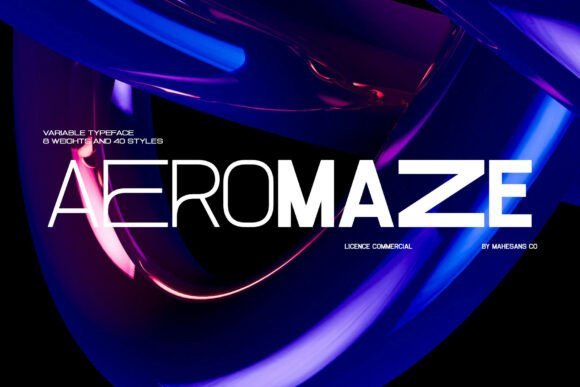
Aeromaze Font represents a sophisticated leap into the future of digital aesthetics, specifically engineered for designers who demand a high-tech edge in their typographic choices. As a standout among urban trendy sans-serif fonts, its construction features a meticulous balance between geometric precision and a fluid, approachable personality. This typeface captures the essence of contemporary minimalism, offering a sleek skeletal structure that feels at home within high-end automotive interfaces, aerospace branding, and forward-thinking tech startups.
Beyond its clean lines, Aeromaze thrives in environments where visual clarity and modern vibes are non-negotiable. It is an exceptional candidate for esports streaming overlays, sci-fi book covers, and futuristic user interfaces where legibility must meet high-concept style. By utilizing this font in immersive social media campaigns or high-resolution product packaging, creators can achieve a polished, professional look that suggests a brand is operating light years ahead of its competition.
2. Under Trained Font
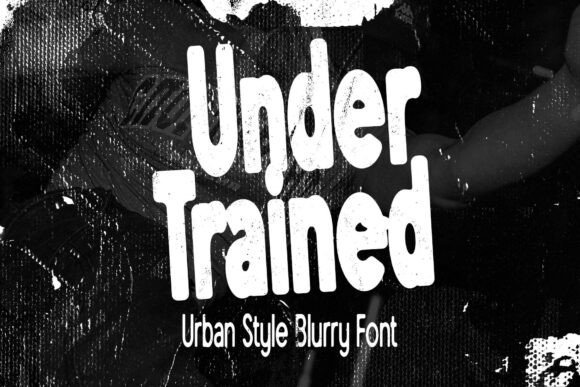
Under Trained Font breaks the traditional boundaries of typography by embracing a raw, motion-blurred aesthetic that mirrors the chaotic energy of metropolitan nightlife. Drawing deep inspiration from underground street culture and DIY zine aesthetics, this typeface is a powerful entry in the world of urban trendy sans-serif fonts. Its tall, condensed character shapes are intentionally softened by a hazy texture, creating a sense of rapid movement and urgency that is perfect for projects seeking a brutalist or Y2K-inspired visual identity.
This font is tailor-made for designers working in the streetwear sector or the independent music scene, where a certain level of grit and rebellion is required. The distorted edges provide an organic, analog feel that contrasts beautifully against clean, digital layouts. Use Under Trained for oversized fashion posters, experimental editorial spreads, or high-impact social media graphics to convey a sense of motion and raw authenticity that standard, sterile fonts simply cannot replicate.
3. Mirox Font
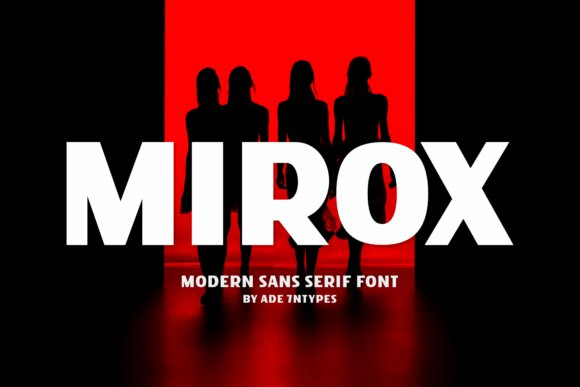
Mirox Font stands as a monolith of modern design, offering a chunky, heavy-duty presence that instantly anchors any visual composition. This heavy sans serif is a masterclass in how urban trendy sans-serif fonts can bridge the gap between vintage block lettering and hyper-modern geometric styles. With its thick, all-caps characters, Mirox exudes an undeniable authority, making it an essential tool for creating bold logos and dominant headlines that need to cut through the visual noise of a crowded creative market.
Because of its robust proportions and rounded corners, Mirox excels in physical applications such as heavy-weight apparel printing and premium retail packaging. It offers a playful yet sturdy vibe that works exceptionally well for lifestyle branding, high-visibility advertising, and t-shirt designs. Whether you are building a brand identity for a modern architectural firm or launching a new line of street-smart consumer goods, this font provides the structural integrity and stylish heft needed to command immediate attention.
4. Urban Shadow Font
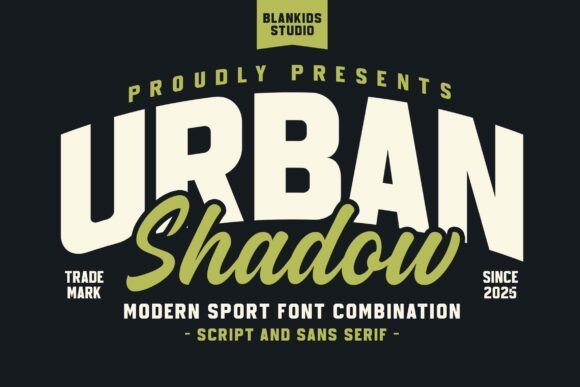
Urban Shadow captures the high-energy spirit of collegiate athletics and transforms it into a versatile toolkit for modern creators. By blending traditional varsity lettering with a clean, contemporary aesthetic, this typeface serves as a standout choice among urban trendy sans-serif fonts. The inclusion of both sans-serif and script variants allows designers to create complex, layered branding systems that feel both nostalgic and forward-thinking. Whether you are crafting a bold logotype for a fitness brand or developing merchandise for a street-style apparel line, the structured geometry of the uppercase letters provides a solid foundation for any professional project.
Technical precision is at the heart of this collection, which features a comprehensive set of numerals and punctuation alongside its distinctive letterforms. The ‘college sporty’ influence is evident in every stroke, making it particularly effective for watermarks and promotional posters that require a sense of movement and competitive drive. By utilizing the script companion, you can soften the industrial edges of the primary sans-serif, achieving a balanced visual hierarchy that resonates with an active, metropolitan audience looking for authentic, varsity-inspired design.
5. Urban Impact Font
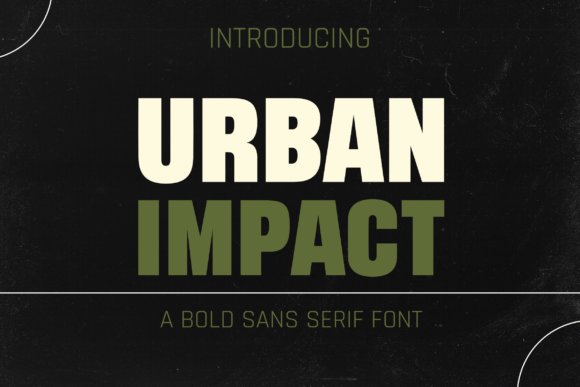
Engineered for maximum visibility, Urban Impact is a powerhouse in the world of urban trendy sans-serif fonts. Its design philosophy centers on the structural resilience of modern architecture, featuring thick, unwavering lines that command attention across digital and physical landscapes. This is the go-to typeface for designers who need to communicate authority and clarity in high-density environments. The solid structure ensures that headlines remain legible even at great distances, making it an ideal candidate for industrial-themed branding, large-scale event posters, and aggressive marketing campaigns that leave no room for ambiguity.
Beyond its sheer visual weight, Urban Impact brings a specific energy that mirrors the pulse of a thriving cityscape. It avoids the clutter of unnecessary ornamentation, relying instead on its robust proportions to convey a message of confidence. We recommend using this font for impactful social media thumbnails or editorial spreads where the typography needs to act as the primary visual anchor. Its clean, masculine aesthetic works harmoniously with gritty photography and minimalist layouts, providing a stark contrast that elevates the overall intensity of your creative work.
6. Chorus Font
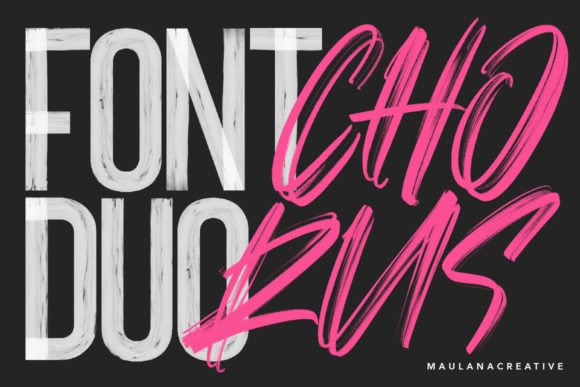
Chorus represents the sophisticated side of urban trendy sans-serif fonts, offering a dual-styled approach that pairs a rhythmic script with a minimalist sans-serif. This harmonious combination is designed to handle the nuances of modern storytelling, where a brand needs to feel both approachable and professionally polished. The script component adds a hand-crafted, human touch to the composition, while the sans-serif provides the stability and modern edge required for digital interfaces and boutique packaging. This synergy makes Chorus an essential asset for lifestyle influencers, high-end retail brands, and editorial designers seeking a bespoke feel.
In practice, the versatility of Chorus allows for seamless transitions between diverse media types. The light, airy nature of the typeface prevents it from feeling heavy, making it perfect for elegant wedding stationery, luxury product labels, or modern blog headers. By alternating between the two styles, you can create a dynamic visual narrative that guides the viewer’s eye through the content. This font duo doesn’t just fill space; it elevates the surrounding design elements by introducing a sense of curated, urban elegance that is rare in more traditional font pairings.
7. Skylines Font
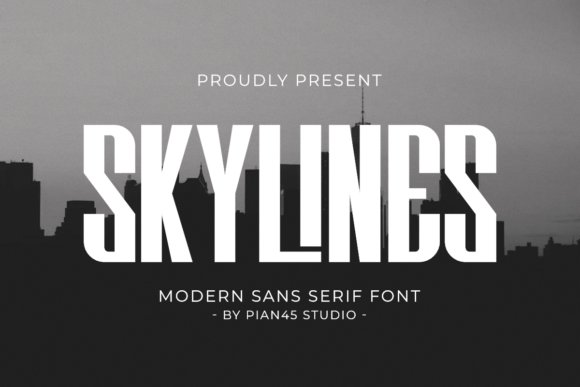
Skylines Font captures the verticality and rhythmic cadence of a metropolitan landscape, offering a condensed profile that mirrors the architectural precision of modern skyscrapers. This typeface is a masterclass in space efficiency, designed specifically for designers who need to make a massive impact within the narrow constraints of mobile interfaces or tall editorial columns. Its sharp terminals and strictly vertical stress evoke a sense of professional polish, making it a standout selection among urban trendy sans-serif fonts for those looking to project authority and sleekness in a single stroke.
Beyond its aesthetic appeal, this font is technically optimized with PUA encoding, ensuring that all unique glyphs and character variations are accessible without specialized design software. It excels in environments where readability and style must coexist, such as luxury real estate branding, high-tech navigational menus, or cinematic title sequences that require a look of sophisticated industrialism. If your project demands a typeface that feels both grounded and aspirational, Skylines provides the necessary height and structure to elevate your visual narrative.
8. Urban Legend Font
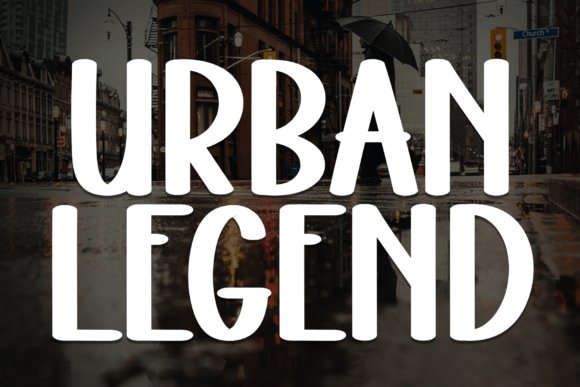
Urban Legend Font breaks away from the cold rigidity of traditional typography by introducing a subtly rounded geometry that softens its bold, heavy weight. It is the quintessential choice for streetwear labels and independent lifestyle brands that want to communicate a sense of grit without sacrificing approachability. The balanced proportions and clean apertures ensure that even at maximum thickness, the font remains legible and energetic, perfectly capturing the pulse of the underground creative scene and contemporary city life.
This typeface thrives in high-contrast environments, such as neon-lit social media graphics, bold apparel prints, and gritty documentary posters. Its unique personality lies in the tension between its massive presence and its friendly, softened edges, allowing it to bridge the gap between high-fashion exclusivity and street-level authenticity. When searching for urban trendy sans-serif fonts that possess a distinct “voice,” Urban Legend stands out for its ability to command attention while maintaining a welcoming, community-focused vibe.
9. Estylo Font
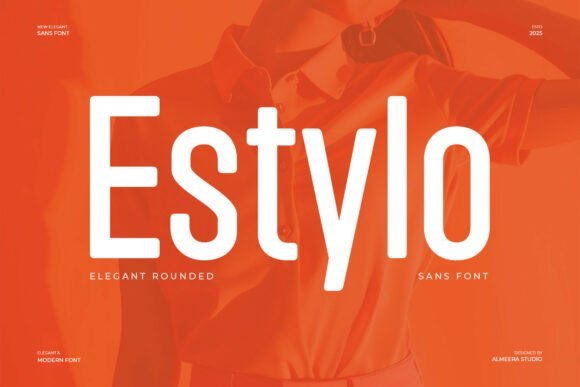
Estylo Font is a celebration of geometric harmony and minimalist luxury, crafted for brands that prioritize a clean, uncluttered aesthetic. Each character is built on a foundation of smooth curves and balanced weights, resulting in a display face that feels exceptionally fluid and rhythmic. Unlike more aggressive display fonts, Estylo maintains a sense of “quiet confidence,” making it the ideal partner for high-end boutique branding, editorial layouts for design magazines, and digital portfolios that require a touch of modern class.
Because of its versatile structure, Estylo functions beautifully in both print and digital mediums, adapting seamlessly to the high-resolution requirements of modern web design. It is frequently sought after by designers looking for urban trendy sans-serif fonts that can transition from a luxury fragrance logo to a functional mobile app header without losing its sophisticated character. The font’s emphasis on circular forms and open space creates an airy, breathable quality that reflects the best of current lifestyle aesthetics and avant-garde design trends.
10. Urban Pollution Font
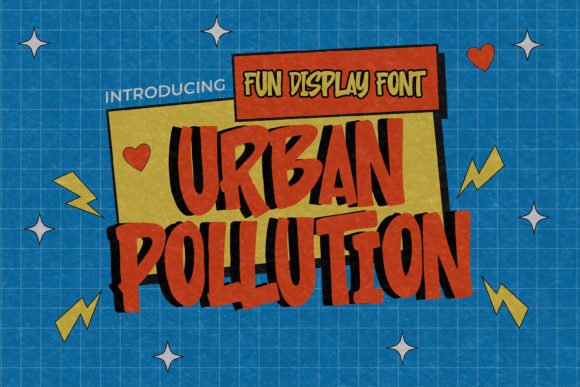
Urban Pollution Font captures the raw, energetic spirit of the city with a playful yet retro-styled aesthetic that bridges the gap between classic display styles and modern streetwear. Its letterforms possess a distinct personality that is both approachable and edgy, making it an ideal choice for urban trendy sans-serif fonts that need to stand out on physical merchandise. The slightly irregular contours give it a hand-crafted feel, perfect for designers looking to inject some authentic character into their visual storytelling.
Beyond its casual charm, this typeface excels in high-visibility contexts such as sportswear branding, dynamic logos, and bold advertising campaigns. Whether you are plastering it across oversized t-shirts or using it as a focal point for a rebellious fashion label, Urban Pollution maintains its legibility while delivering a massive punch of personality. It is the go-to solution for projects that demand a lived-in, textured look without sacrificing professional polish.
11. Gc Grind Font
Gc Grind Font is a masterclass in condensed typography, engineered for designers who require maximum impact within tight horizontal spaces. This typeface radiates an assertive, modern grit, making it a cornerstone for those seeking urban trendy sans-serif fonts that command immediate attention. Its sharp edges and tight tracking create a powerful vertical rhythm, perfect for high-stakes editorial headlines, cinematic posters, and aggressive sports branding where strength and speed are the core themes.
The technical sophistication of this font is further enhanced by its PUA encoding, allowing designers to seamlessly access a range of alternates and characters for custom logo work. In the digital landscape, Gc Grind cuts through the noise of standard web layouts, offering a contemporary stance that feels both futuristic and grounded in industrial design. Use it when your project requires a confident, unapologetic visual presence that refuses to be ignored.
12. Rainbow Darling Duo Font
The Rainbow Darling Duo Font represents a sophisticated toolkit for modern brand identities, pairing a massive, rounded sans-serif with a graceful monolinear script. This juxtaposition allows creators to explore the duality of urban trendy sans-serif fonts—combining the heavy, structural weight of city architecture with the fluid, personal touch of human handwriting. The chunky sans component is particularly effective for large-scale graphics, while the script adds a layer of sincerity and elegance to the overall composition.
This duo is specifically tailored for lifestyle brands, boutique event stationery, and social media content creators who want to build a legendary visual narrative. By alternating between the high-impact blocks of the sans and the rhythmic flow of the script, you can create a hierarchy of information that feels both professional and intimately crafted. It is an essential choice for anyone looking to achieve a signature look that feels current, youthful, and highly versatile across different media platforms.
13. Marony Font
Marony stands out as a titan among urban trendy sans-serif fonts, boasting a thick geometric architecture that commands attention immediately. The defining characteristic of this typeface is its rhythmic underline flourish, which adds a sense of motion and kinetic energy to static designs. It is specifically engineered for the fast-paced world of independent athletic apparel and high-octane branding where a sense of momentum is essential for capturing a viewer’s eye in a crowded marketplace.
This typeface excels in large-scale applications like high-impact social media headers and street-level promotional posters. Its massive structural weight provides a stable foundation for complex layouts, while the clean lines ensure maximum legibility even from a distance. If you are looking to define a brand with a bold and unforgettable personality, Marony offers the modern-and-dynamic soul required to cut through digital noise and establish a dominant visual presence.
14. Navarro Font
Navarro taps into the gritty, industrial aesthetic of city life, positioning itself as a premier retro urban sans-serif stencil font. Unlike clean or clinical typefaces, this font embraces the raw grunge and grit found in metropolitan landscapes, offering a commanding appearance that feels rooted in street art and architectural signage. Its simple geometric forms are interrupted by precise stencil gaps, giving it an authentic, lived-in feel that resonates with heritage branding and vintage-inspired graphics.
Perfect for designers working on projects that require a touch of historical weight, Navarro functions beautifully on textured backgrounds like brick, concrete, or weathered wood. It serves as an ideal choice for urban-themed apparel, craft brewery labeling, or editorial layouts exploring the intersection of modern design and mid-century industrialism. By integrating this stencil look, you infuse your project with a strong, masculine character that is both timeless and trend-forward.
15. Magnol Font
Magnol represents the pinnacle of contemporary minimalism, offering a sleek and urban geometric sans-serif experience. Its design philosophy centers on balanced proportions and wide apertures, which lend an airy, breathable quality to digital interfaces and printed media alike. As one of the more versatile urban trendy sans-serif fonts available, it perfectly balances the line between professional corporate identity and the avant-garde aesthetics of the high-fashion industry.
The inherent clarity of this font makes it a superb candidate for UX/UI design, mobile applications, and modern editorial work where readability is the top priority. Beyond its functional utility, Magnol possesses a chic, trendy vibe that enhances high-end luxury branding or minimalist lifestyle blogs. Whether you are crafting a clean logo or a comprehensive brand guidelines document, Magnol provides a polished, sophisticated edge that feels current and globally accessible.
16. Grisy & Rocky Font
Grisy & Rocky is a definitive condensed bold powerhouse, representing the high-impact side of urban trendy sans-serif fonts. Its slender yet sturdy profile is specifically engineered for designs where verticality and space efficiency are paramount, making it an exceptional choice for gritty streetwear apparel, gym signage, and high-energy sports broadcast graphics. The typeface exudes a raw architectural strength that ensures your headlines punch through busy visual environments without sacrificing legibility or professional polish.
What sets this typeface apart is the inclusion of sophisticated ligatures and alternates that allow designers to break the standard rigidity often found in condensed styles. These creative flourishes make Grisy & Rocky highly adaptable for modern digital marketing campaigns and contemporary magazine covers. Whether you are building a visual identity for an emerging fitness brand or crafting a bold header for a tech-oriented blog, this font delivers a sense of momentum and unshakeable confidence that commands the viewer’s immediate attention.
17. Ecliptica Font
Ecliptica serves as a sophisticated bridge between brutalist street aesthetics and high-fashion minimalism, carving out a unique niche within the realm of urban trendy sans-serif fonts. Characterized by its expansive wide proportions and a strikingly tall x-height, this typeface offers an open, airy feel that is rarely found in traditional geometric designs. Its clean architecture makes it a premier candidate for luxury lifestyle editorials and high-end digital interfaces where clarity and minimalist elegance are the primary objectives.
Crafted by Vadova Studio for the next generation of creatives, Ecliptica provides a sturdy yet stylish presence that maintains its integrity across diverse mediums, from large-scale environmental graphics to mobile app UI. In the context of streetwear branding, it offers a professional edge that reflects the fast-paced, evolving nature of global style trends. By balancing functional geometry with a distinct fashion-forward personality, this font ensures that any brand identity feels both timeless and cutting-edge.
18. Droves Font
Droves is a masterclass in understated luxury, offering a sleek and assertive charm that captures the essence of modern sophistication. As an essential entry among urban trendy sans-serif fonts, it favors a monochromatic and minimalist approach that thrives in high-contrast design environments. The font’s refined stroke weights and balanced character spacing create a polished visual rhythm, making it the ideal choice for high-gloss fashion magazines, luxury real estate brochures, and premium editorial layouts that require a touch of class.
Unlike more aggressive display faces, Droves maintains a quiet dominance that enhances the surrounding imagery rather than overwhelming it. This subtle power makes it a go-to for graphic and print design virtuosos who need a versatile typeface for art gallery catalogs or high-end cosmetic branding. By integrating Droves into your creative projects, you infuse your work with a distinctive, professional radiance that translates complex brand values into a chic and easily digestible visual language.
19. Kartazis Font
Kartazis breaks away from the clean lines typically associated with digital typography, offering a raw, unfiltered aesthetic that channels the energy of concrete jungles. This typeface captures a gritty, distressed texture that makes it an essential asset for designers looking to inject a sense of authenticity and street credibility into their work. Its irregular edges and weathered appearance suggest a history and a story, moving beyond mere decoration to provide a visceral, tactile experience that resonates with a subculture audience.
When integrating Kartazis into your toolkit of urban trendy sans-serif fonts, think of it as the perfect choice for underground music posters, skate culture branding, or edgy apparel labels. It thrives in high-contrast environments where its industrial, used feel can clash effectively against minimalist layouts. Whether utilized for a DIY zine cover or a provocative social media campaign, this font ensures your message is not just seen, but felt through its uncompromisingly bold and textured character.
20. Mandtown Font
Mandtown stands as a testament to the power of structured confidence, bridging the gap between high-fashion editorial aesthetics and the rugged world of modern streetwear. Its architecture is defined by sturdy letterforms and exceptionally tight kerning, creating a dense, impactful visual rhythm that commands immediate attention on any canvas. Unlike more chaotic distressed faces, Mandtown relies on geometric precision and clean lines to communicate its authority, making it a cornerstone for brands that want to appear established yet cutting-edge.
This typeface is remarkably versatile across digital and physical media, excelling particularly in large-scale formats like billboard advertisements or cinematic title cards. As one of the more versatile urban trendy sans-serif fonts, it offers the legibility required for dense editorial layouts while maintaining enough stylistic flair to carry a standalone logo. It is the go-to choice for creators who need a font that feels both timelessly solid and intensely current, ideal for everything from high-end tech startups to independent boutique labels.
21. Urban Space Font
Urban Space is a heavyweight contender in the realm of display typography, engineered specifically for those moments where subtlety is not an option. Its massive stroke weight and intentional lack of frills result in a typeface that feels industrial and immovable, much like the skyscrapers that define a city’s skyline. This font is built for the maximalist age, providing the necessary visual weight to anchor complex graphic compositions and ensure that headlines remain readable even amidst vibrant, busy backgrounds or high-speed scrolling.
While many urban trendy sans-serif fonts lean into thin, airy structures, Urban Space goes in the opposite direction, making it a premier selection for gaming interfaces, action movie branding, and bold apparel graphics. Its thick, blocky nature provides a perfect canvas for custom textures, gradients, or 3D effects, allowing designers to experiment with high-impact visuals. From YouTube thumbnails that require instant clickability to corporate identities that want to project strength and stability, Urban Space provides a rock-solid foundation for any project demanding maximum visibility.
22. Urban Vogue Font
Urban Vogue Font is a masterclass in minimalist sophistication, specifically tailored for the high-fashion circuit and upscale editorial layouts. As a standout choice among urban trendy sans-serif fonts, its design philosophy centers on clean, fluid lines and perfectly balanced proportions that exude a sense of luxury without the weight of unnecessary ornamentation. This typeface manages to feel both timeless and incredibly current, making it an indispensable tool for designers working on branding projects for boutique labels, premium lifestyle magazines, or high-end cosmetic lines.
Beyond its aesthetic appeal, the font’s versatility shines in digital spaces where clarity and elegance must coexist. It is particularly effective for web headers and social media imagery where a “less is more” approach is required to capture the attention of a style-conscious audience. Whether you are crafting a logo for a modern architecture firm or developing promotional materials for a contemporary art gallery, Urban Vogue provides a polished foundation that elevates the entire visual narrative with its chic, cosmopolitan flair.
23. Urban Vibes Font
Urban Vibes Font redefines the condensed aesthetic with its sleek, vertical geometry and exceptionally narrow letterforms. Designed for creators who need to maximize visual impact within tight spaces, this typeface represents the more agile side of urban trendy sans-serif fonts. Its tall architecture creates a sense of upward movement and modernity, making it a favorite for cinematic title cards, vertical social media formats, and high-impact poster designs where every millimeter of horizontal space is precious.
The technical precision of the font extends to its utility in the Print On Demand (POD) market, where it excels on everything from narrow tote bags to vertical typography on streetwear hoodies. Because it is fully PUA encoded, designers can easily access its full range of characters across various software platforms, ensuring a seamless workflow. Use Urban Vibes when your project demands a minimalist but assertive voice, such as in tech startup branding, architectural wayfinding, or modern packaging where a clean, industrial-chic look is the primary objective.
24. Hoodie Font
Hoodie Font stands as a heavy-hitting contender in the world of urban trendy sans-serif fonts, prioritizing raw power and industrial strength. Unlike its more delicate counterparts, this bold condensed typeface utilizes thick, solid strokes and compact spacing to command immediate attention. It is built for the world of streetwear and athletics, capturing the aggressive energy of city life and the competitive spirit of professional sports. Its presence is unavoidable, making it the perfect selection for high-octane headlines and impactful brand marks.
Functionally, Hoodie is engineered for maximum legibility in high-pressure environments, such as gym apparel branding, sports broadcast graphics, and event merchandise. The condensed nature of the bold strokes allows for massive lettering that doesn’t overwhelm the canvas, providing an energetic edge to digital thumbnails and social media banners. For designers looking to instill a sense of grit and durability into their work, this font offers a professional-grade solution that bridges the gap between traditional athletic block lettering and contemporary street culture aesthetics.
25. Bronx Font
Bronx Font captures the sophisticated intersection of mid-century Art Deco and the sleekness of modern metropolitan life. Its monoline inline structure adds a layer of depth and craftsmanship that standard weights often lack, making it a standout choice for high-end boutique branding or architectural portfolios. The geometric precision inherent in its design suggests a built environment, where every stroke feels like a structural beam intended for both durability and aesthetic grace.
When searching for urban trendy sans-serif fonts that bridge the gap between heritage and futurism, Bronx excels in editorial headers and premium signage. It offers a refined skeletal elegance that remains legible even when scaled up for large-format posters or digital billboards. Whether you are designing for a luxury hotel chain, a high-concept fashion brand, or a niche gin distillery, this typeface provides a confident, rhythmic presence that commands attention without overwhelming the surrounding design elements.
26. Propaganda Font
Propaganda Font is the definitive solution for designers seeking a raw, unapologetic presence in their typographic choices. Heavily rooted in the aesthetics of industrial-age signage and vintage activism, this typeface utilizes massive visual weight and sharp, uncompromising corners to deliver a message with absolute authority. It is far from a subtle choice; it is a specialized tool for high-contrast communication where the letterforms themselves act as the primary graphic centerpiece.
Within the landscape of urban trendy sans-serif fonts, Propaganda is particularly effective for streetwear apparel branding, cinematic title cards, and high-impact editorial headers. Its steady rhythmic spacing and solid construction allow it to maintain incredible clarity on both digital screens and physical textures, making it a versatile asset for grassroots movements or underground music event promotions. If your creative project requires a voice that feels established yet revolutionary, this font provides the necessary gravity to make that statement permanent.
27. Aeromaze Font
Aeromaze Font represents the vanguard of digital-first typography, specifically engineered for the fast-paced world of technology, gaming, and esports. With its sleek geometry and razor-sharp terminals, this typeface family embodies a high-velocity aesthetic that feels right at home in futuristic UI/UX designs and immersive digital environments. It moves away from traditional soft curves, favoring a streamlined structure that suggests speed, efficiency, and a forward-thinking technological mindset.
As a leading example of urban trendy sans-serif fonts, Aeromaze is remarkably adaptable, performing just as well on minimalist product packaging as it does across a complex social media campaign. Its technological undertones make it a perfect fit for sci-fi inspired media, cyberpunk branding, or cutting-edge fashion editorials. By balancing technical precision with a distinct, sharp personality, it allows creators to push the boundaries of modern visual storytelling while maintaining the sleekness required by today’s high-end digital landscapes.
28. IndieFest Font
IndieFest Font captures the raw energy of street-level creativity, offering a marker-drawn aesthetic that bridges the gap between traditional handwriting and modern display typography. As a standout choice among urban trendy sans-serif fonts, its deliberate imperfections and rhythmic stroke widths mimic the look of handcrafted event posters and independent boutique signage. This font excels in environments where a human touch is required to break through the clinical coldness of digital interfaces, making it a powerful tool for brands looking to establish an authentic, grassroots connection with their audience.
Beyond its visual appeal, IndieFest is remarkably versatile for high-impact social media layouts and apparel design. It pairs exceptionally well with minimalist photography, providing a stylish edge that feels both current and nostalgically connected to the DIY punk and indie scenes. Whether you are designing a zine-style layout or a contemporary streetwear logo, this font provides the tactile depth necessary to make your headlines pop with personality and urban sophistication.
29. Variant Font
Variant Font is a bold exploration of geometric structure infused with the grit of metropolitan life. Its ‘wild style’ influence brings a high-octane energy to the page, positioning it as a premier selection for designers seeking urban trendy sans-serif fonts that refuse to blend into the background. The typeface features thick, deliberate lines and unique character shapes that suggest a sense of movement and architectural stability, making it ideal for large-scale displays, motion graphics, and experimental editorial work where the font itself acts as a primary design element.
Technical flexibility is a core strength of Variant, as it comes PUA encoded to ensure that its full range of swashes and glyphs are easily accessible across various design software. This allows for extensive customization, enabling you to create bespoke logotypes for skate brands, music festivals, or technology startups that want to project a disruptive, forward-thinking image. Its heavy weight ensures maximum readability even in cluttered environments, making it a dependable choice for outdoor advertising and digital banners.
30. Urban Love Font
Urban Love Font introduces a softer, more intimate dimension to the world of urban trendy sans-serif fonts. By combining clean, modern proportions with whimsical, hand-drawn curves, it manages to feel sophisticated without losing its playful warmth. This typeface is designed for the modern romantic and the lifestyle brand owner, offering a lighthearted yet professional aesthetic that works beautifully for wedding invitations, artisanal product packaging, and heartfelt branding projects that require a gentle, humanistic touch.
The subtle irregularities in its strokes provide a sense of approachability that rigid sans-serifs often lack. It is particularly effective for social media influencers and boutique retailers who need to maintain an elegant, curated look while still appearing relatable and friendly. Use Urban Love for quote graphics, delicate logo marks, or chic stationery to infuse your projects with a sense of modern elegance and effortless charm that resonates with a trend-conscious, lifestyle-focused audience.
31. Whoomp Font
Whoomp Font stands out as a heavyweight in the world of urban trendy sans-serif fonts, characterized by its remarkably wide letterforms and deep roots in contemporary streetwear culture. This typeface isn’t just about presence; it offers an expansive library of over 200 alternate glyphs, allowing designers to tweak and tailor every character for a truly bespoke look. Whether you are crafting a high-impact logo for a lifestyle brand or looking for that perfect extended header for a digital magazine, Whoomp provides a sense of gravity and modern flair that is hard to ignore.
Beyond its visual weight, the font excels in versatile applications ranging from bold social media graphics to edgy product packaging. Its unique character shapes thrive in environments where visibility is key, making it an excellent choice for watermarks on professional photography or as a primary typeface for promotional event posters. By blending modern proportions with an underground aesthetic, Whoomp serves as a cornerstone for any creative project aiming for a bold, expansive urban identity.
32. Urban Font
Urban Font captures the essence of sophisticated minimalism, offering a clean and polished take on the classic sans-serif structure. Designed for the modern era, this typeface strips away unnecessary clutter to focus on geometric balance and absolute legibility. It is particularly effective for tech-driven interfaces and minimalist lifestyle branding, where a quiet yet confident typographic voice is required to guide the viewer through a digital space without overwhelming the overall visual layout.
In addition to its sleek appearance, the versatility of Urban Font makes it a reliable tool for diverse design ecosystems. From corporate stationary to high-fashion web layouts, its neutral yet stylish weights adapt seamlessly to both print and digital mediums. If your goal is to achieve a professional, high-end look that resonates with the current wave of urban trendy sans-serif fonts, this typeface provides the precision and clarity needed to elevate your brand’s narrative to the highest level.
33. Rotterdam Font
Rotterdam Font draws its inspiration from the sharp lines and functional clarity of modern architecture, embodying a metropolitan spirit that is both structured and refined. Its design language speaks to the grit and order of a developing city, featuring strong verticality and minimal curves that convey a sense of industrial strength. This makes it an ideal candidate for signage systems, tech-oriented editorial spreads, and visual identities that need to project a sense of reliability and forward-thinking structural design.
The typeface’s refined presence ensures that it remains highly legible even in complex visual environments, such as wayfinding systems or busy digital dashboards. By integrating Rotterdam Font into your toolkit, you gain a sophisticated asset that balances bold impact with subtle architectural sophistication. It is a standout choice among urban trendy sans-serif fonts for designers who prioritize integrity and a clean, contemporary edge in their typographic compositions.
34. Urban Summer Font
Urban Summer Font brings a refreshing, approachable energy to the world of urban trendy sans-serif fonts. While many contemporary typefaces lean towards a cold, industrial aesthetic, this font breaks the mold with a soft, friendly demeanor that feels human and organic. Its subtle rounded edges and open apertures make it highly legible, making it an excellent choice for lifestyle brands or wellness influencers looking to maintain a modern edge without sacrificing warmth.
Beyond its aesthetic charm, this typeface excels in versatile applications, from high-end streetwear lookbooks to vibrant social media campaigns. The natural flow of its characters allows it to sit comfortably on everything from minimalist product packaging to digital interface designs. When you need a typeface that speaks to a youthful, city-focused audience while remaining incredibly inviting, Urban Summer Font provides the perfect balance of metropolitan sophistication and casual, sun-drenched flair.
Choosing the right typeface can define the entire mood of your project, and these 34 urban trendy sans-serif fonts offer the perfect balance of style and function. From bold headlines to subtle body text, these selections will keep your 2026 designs looking fresh and relevant. Make sure to experiment with different weights and spacing to truly unlock the potential of these metropolitan-inspired styles.